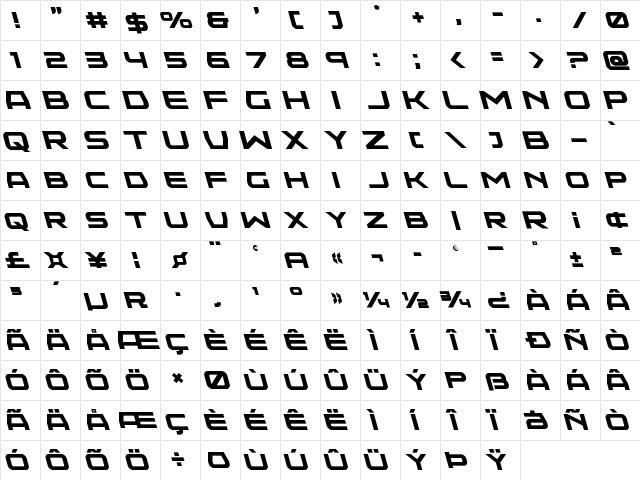
Neutron Dance Leftalic Regular
Design Context for Neutron Dance Leftalic Typeface
Neutron Dance Leftalic is a composed and adaptable typeface that performs quietly and consistently across a wide range of design contexts. The slanted form adds forward momentum and visual energy.
Pro Tip: Use Neutron Dance Leftalic for emphasis, pull quotes, and subheadings where its slanted energy can add rhythm to the layout.